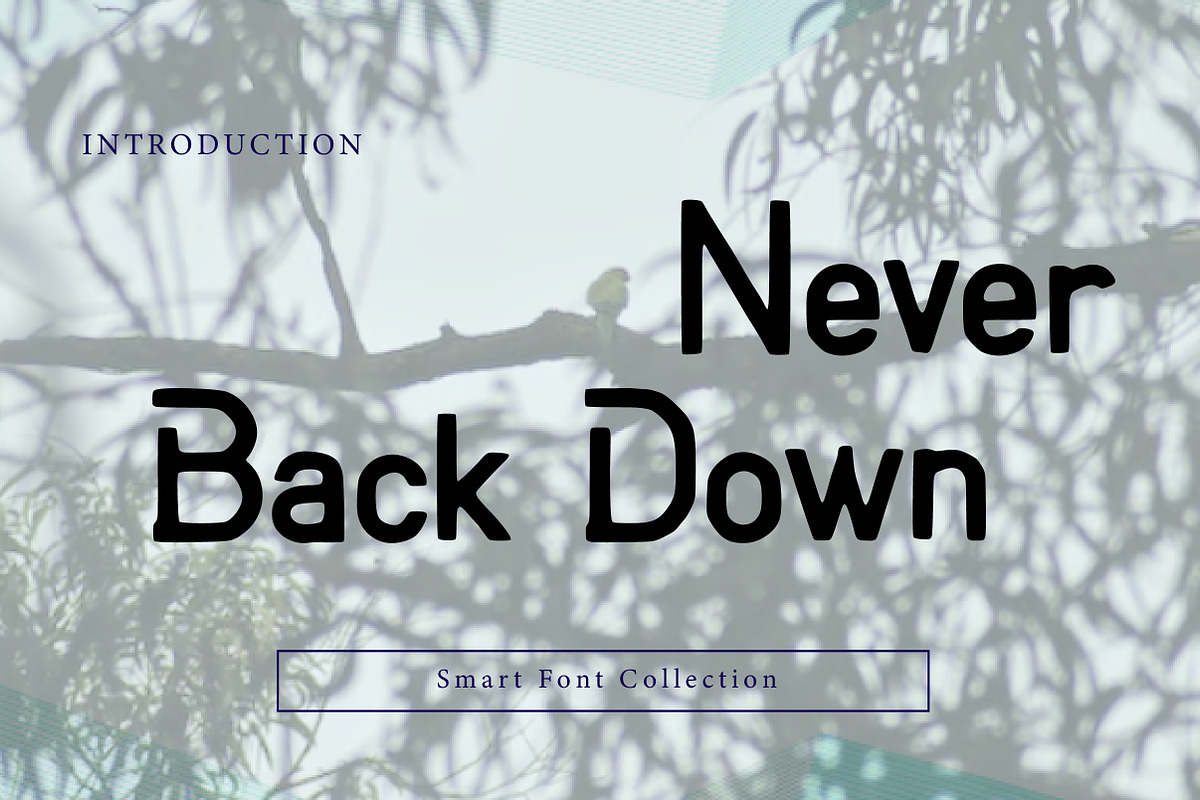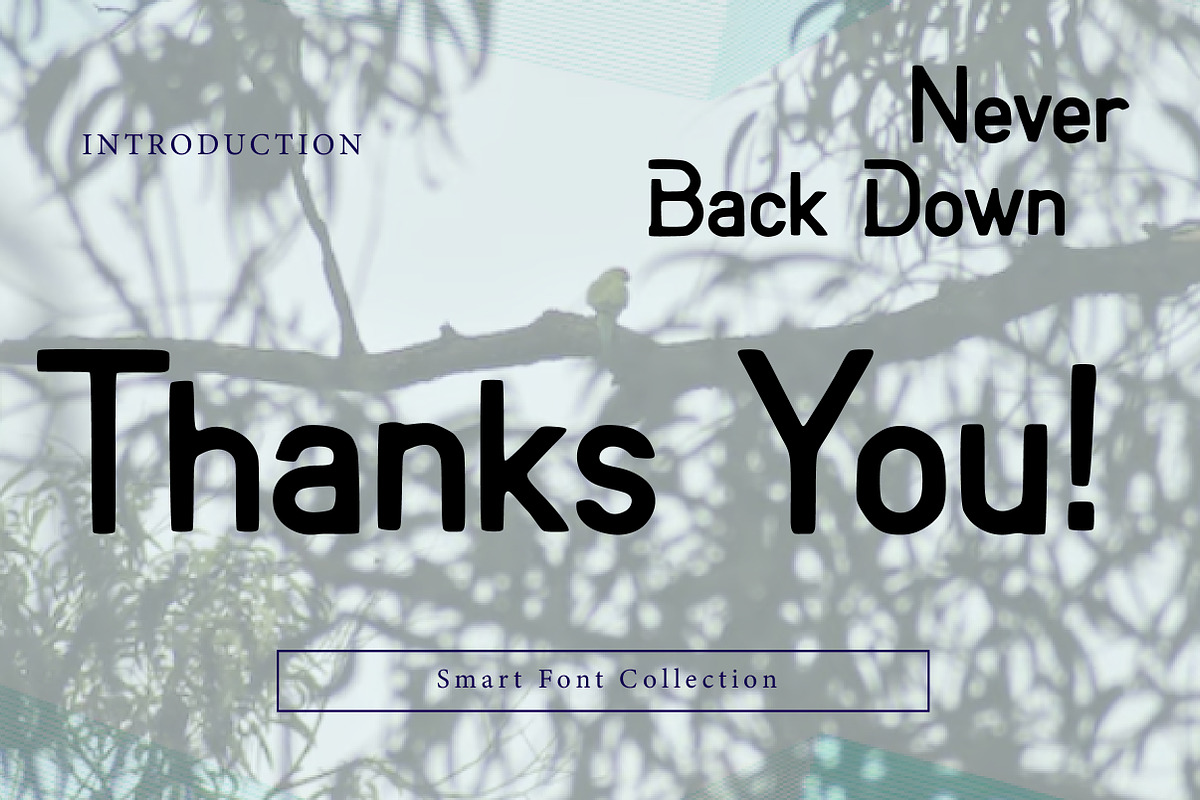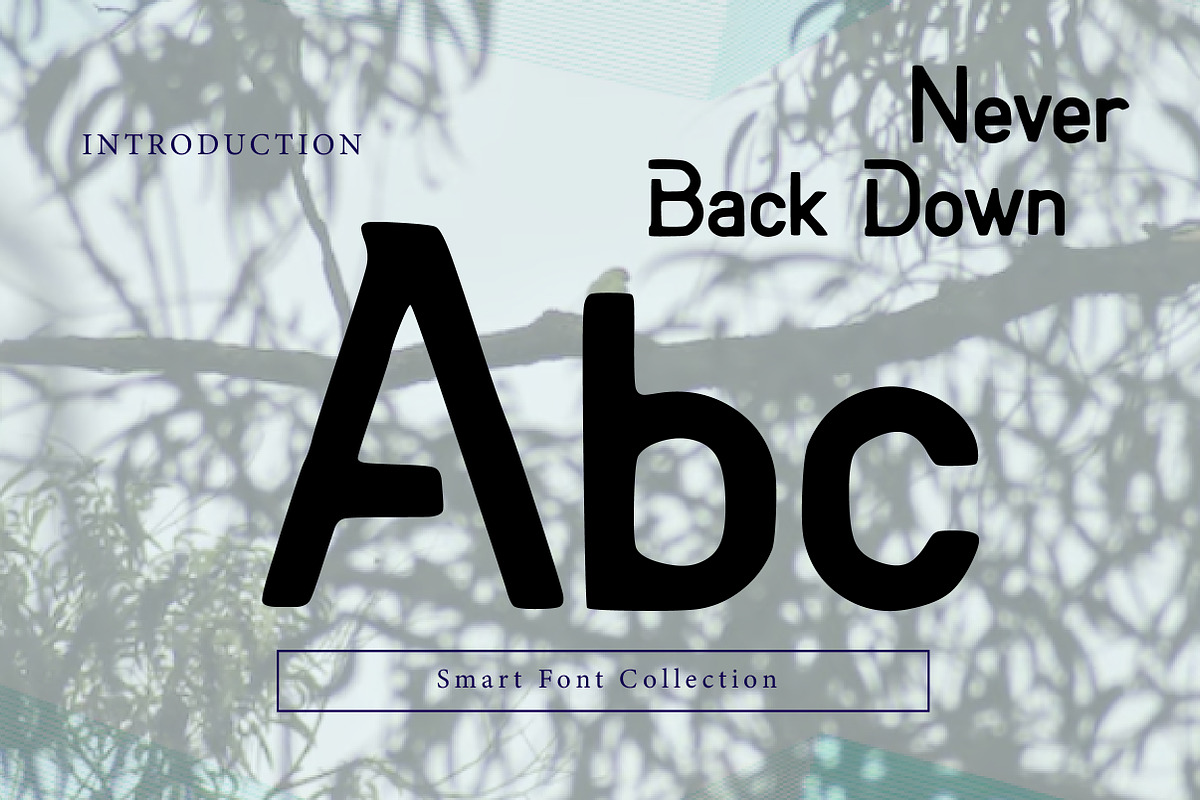
Never back down
Never Back Down is a bold, playful display font with a chunky rounded feel and an energetic, friendly attitude. Its thick strokes and soft corners make it highly readable while still giving a fun, modern look—perfect for motivational quotes, streetwear graphics, posters, YouTube thumbnails, social media content, bold branding, stickers, and punchy headlines. Use it for sporty designs, youth themes, merch, and any project that needs confident, upbeat typography.